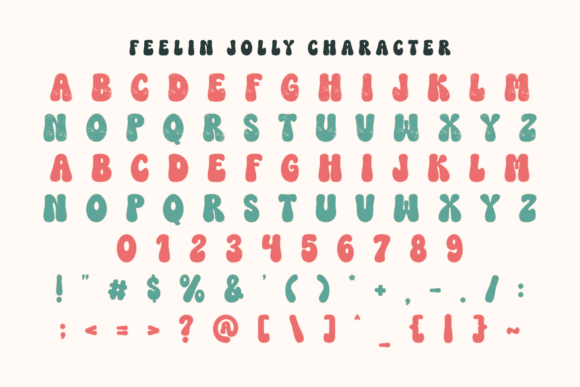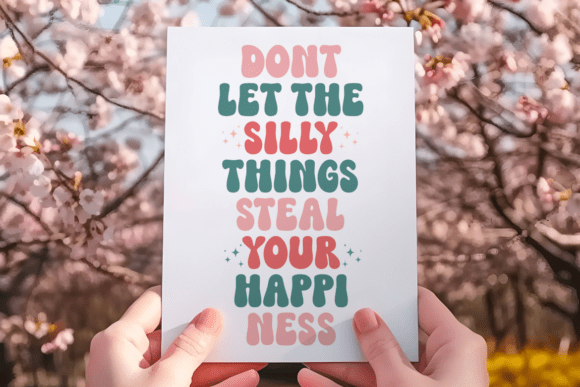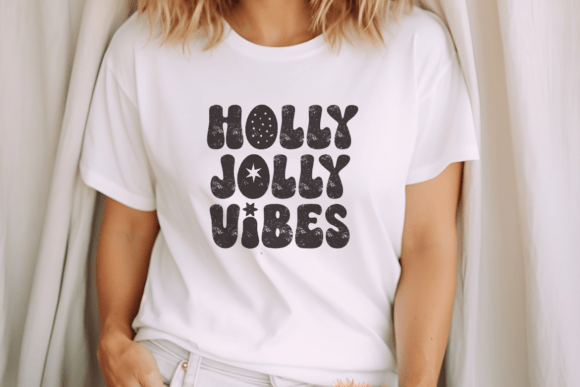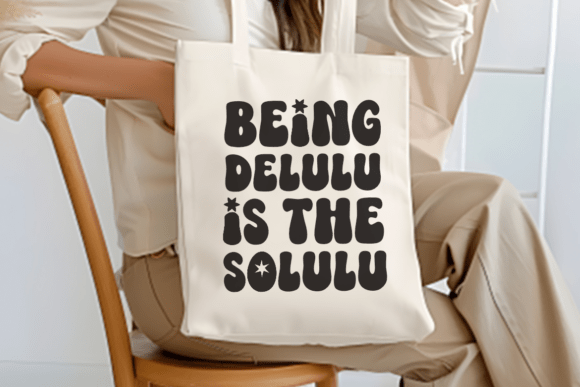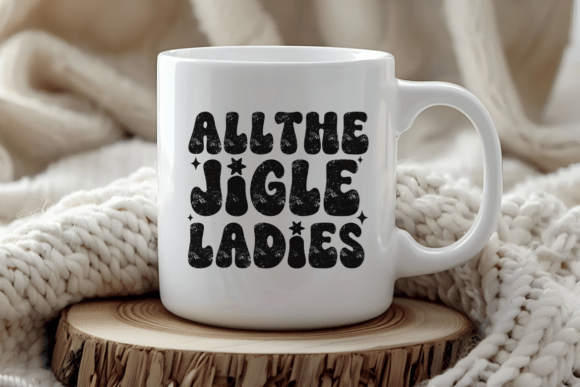
Introducing Feelin Jolly Font: The Ultimate Holiday Display Font
Are you looking for a font that captures the essence of vintage Christmas decorations and the retro aesthetic of the 60s and 70s? Look no further than Feelin Jolly Font, a chunky, textured, and groovy display font that’s perfect for adding a touch of nostalgia to your holiday designs.
Inspired by the Magic of Vintage Christmas Decorations
Feelin Jolly Font is inspired by the heartwarming, playful nostalgia of vintage Christmas decorations. Its distressed, handmade texture and bold, bubble letters give it a unique charm that’s sure to bring a smile to anyone’s face. Whether you’re creating designs for Christmas, Winter, or Holiday markets, this font is a must-have for adding a touch of retro flair.
Perfect for Craft, POD, and DIY Creators
Feelin Jolly Font is ideal for craft, POD (Print On Demand), and DIY creators who want to add a vintage touch to their digital designs. The textured look of this font is excellent for creating a tactile, vintage feel that’s perfect for holiday-themed designs. With Feelin Jolly Font, you can create stunning designs that will stand out from the crowd and capture the hearts of your audience.
Feelin Jolly Font is incredibly versatile and can be used for a wide range of design projects, including:
- Crafting SVG designs
- Retro holiday t-shirts
- Seasonal mug designs
- Christmas sublimation projects
- Personalized gift tags
- Festive signs
- Holiday party invitations
- Scrapbooking
- Playful branding for winter events
- Cozy home decor
Great for Holiday Themes
Feelin Jolly Font is perfect for holiday themes such as:
- Christmas
- Winter Solstice
- New Year’s
- General Seasonal Celebrations
Bring a Cozy, Funky, and Joyfully Vintage Vibe to Your Designs
Feelin Jolly Font instantly brings a cozy, funky, and joyfully vintage vibe to every project. Its unique texture and bold, bubble letters make it perfect for creating designs that are both fun and nostalgic. Whether you’re creating designs for personal use or for clients, Feelin Jolly Font is sure to become a favorite in your font collection.
Why Choose Feelin Jolly Font?
Here are just a few reasons why Feelin Jolly Font is a must-have for designers and crafters:
- Unique, distressed texture that adds a vintage touch to designs
- Bold, bubble letters that are perfect for creating eye-catching designs
- Perfect for holiday-themed designs, including Christmas, Winter, and Holiday markets
- Incredibly versatile and can be used for a wide range of design projects